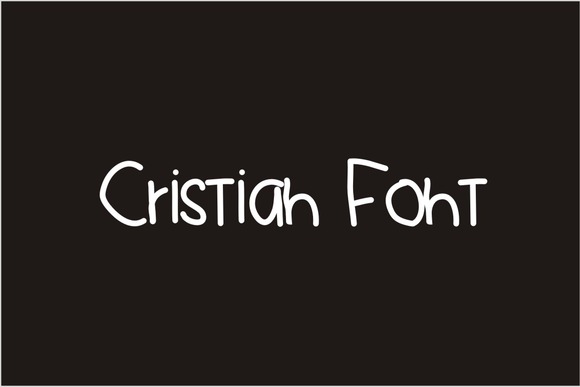
Cristian Font
Dive into the world of captivating calligraphy with Cristian Font, a striking script font family, meticulously designed by the talented Carolina Mejia. Inspired by the charm of childhood scribbles, Cristian takes you on a nostalgic journey into the world of handwritten stories and whimsical creations. Let your imagination soar as you explore the unique characters and enchanting ligatures that bring your designs to life.
With Cristian Font, you can effortlessly infuse your projects with a heartwarming and playful touch. Whether you're crafting heartfelt invitations, whimsical posters, or enchanting logos, Cristian adds a personal touch that speaks to the heart. Its charming imperfections and organic flow create a sense of authenticity that resonates with audiences, leaving a lasting impression.
Cristian Font is not just a collection of letters; it's a gateway to a world of creativity and expression. Let your words dance across the page with playful abandon, bringing a smile to the faces of your readers. Let Cristian be your paintbrush, transforming ordinary designs into enchanting masterpieces that capture the essence of childhood wonder.
Embark on a creative adventure with Cristian Font, where imagination knows no bounds. Let the magic of handwritten charm captivate your audience and leave them enchanted by your creations. Step into a world where letters come alive, where stories unfold, and where your design dreams take flight.